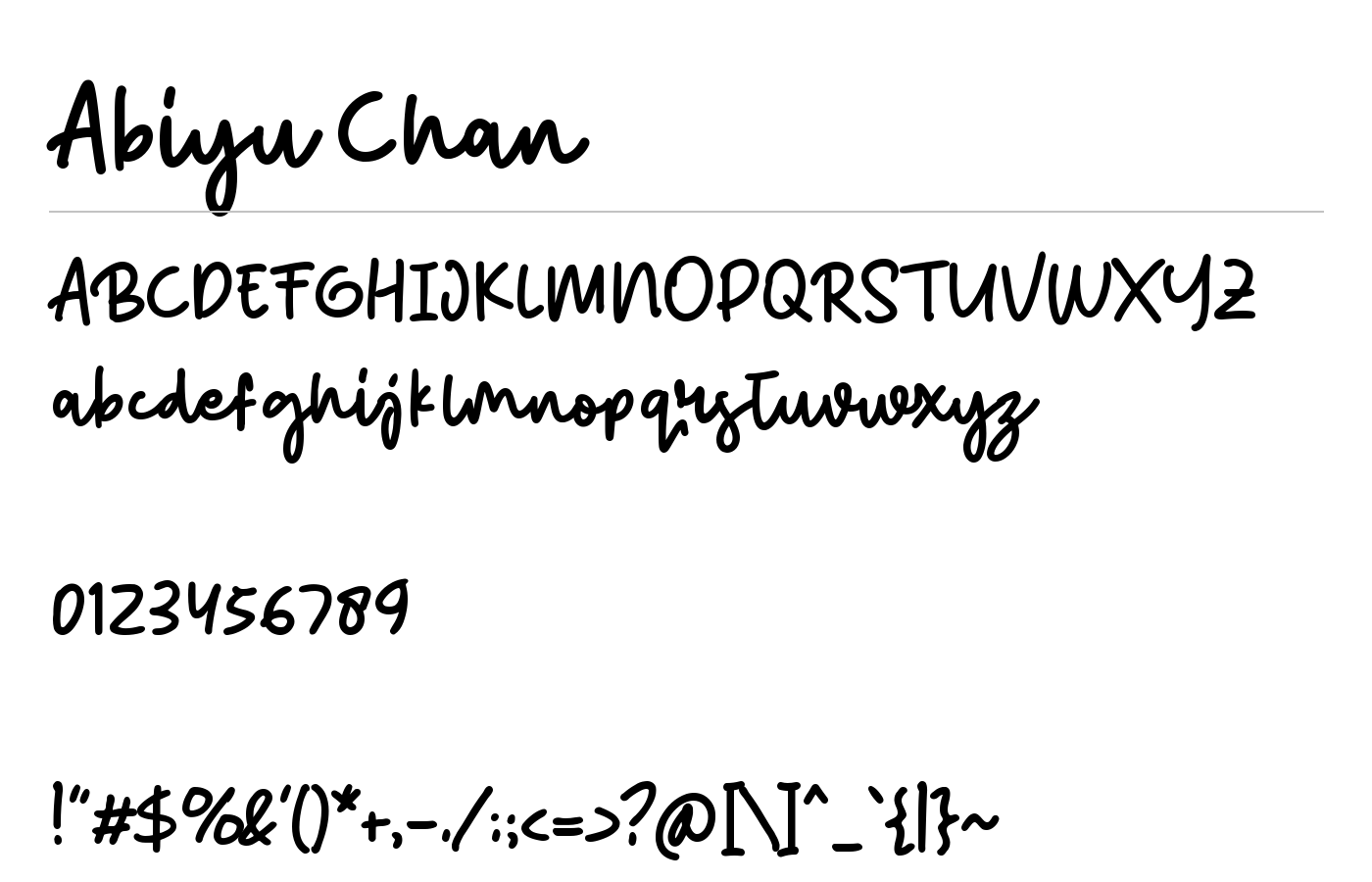
Abiyu Chan is a lively, handwritten script font with a casual and friendly feel. Its smooth, moderately thick strokes and playful ligatures create an inviting look that works well for informal branding, social media graphics, and personal projects. This font’s natural flow and clear legibility make it ideal for headlines and creative designs that seek a warm, approachable personality.
Abiyu Chan Font
About Abiyu Chan Font
| Font family | Abiyu Chan Font |